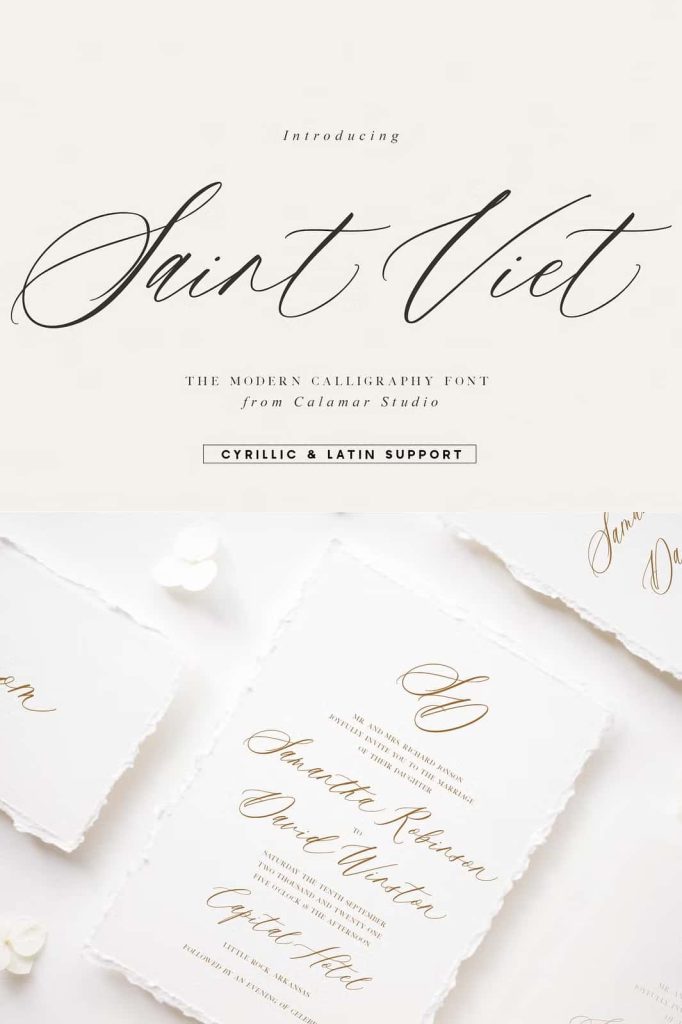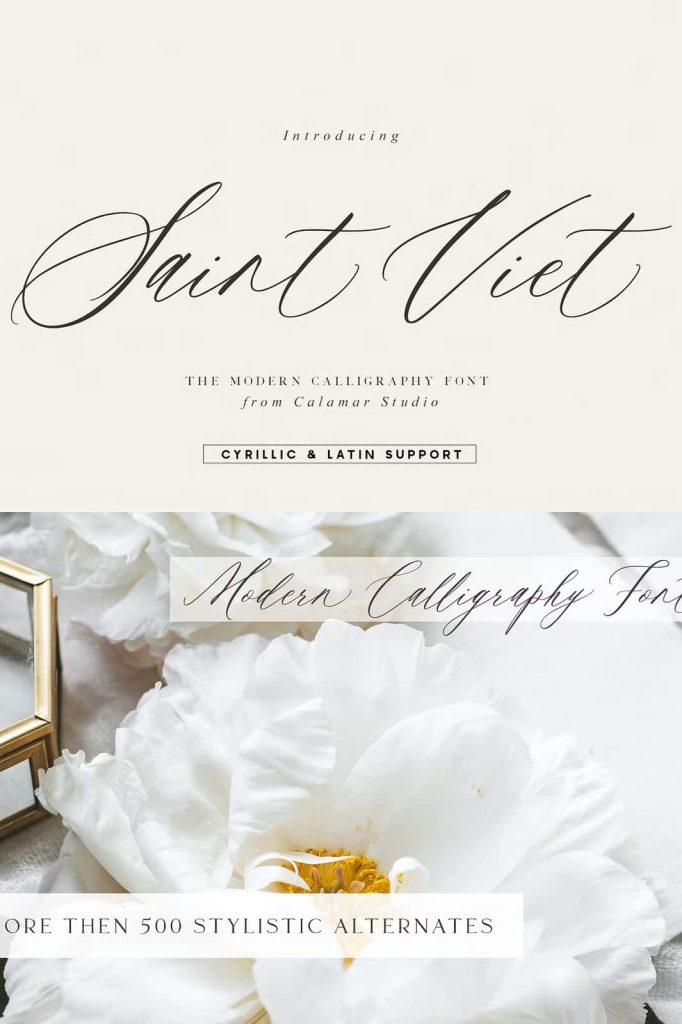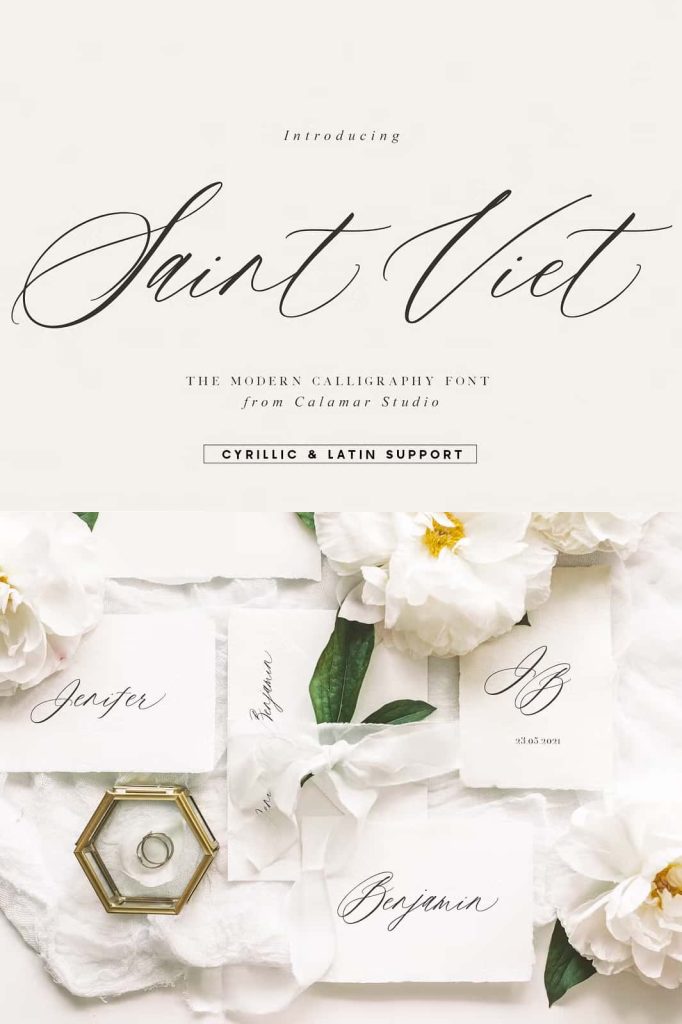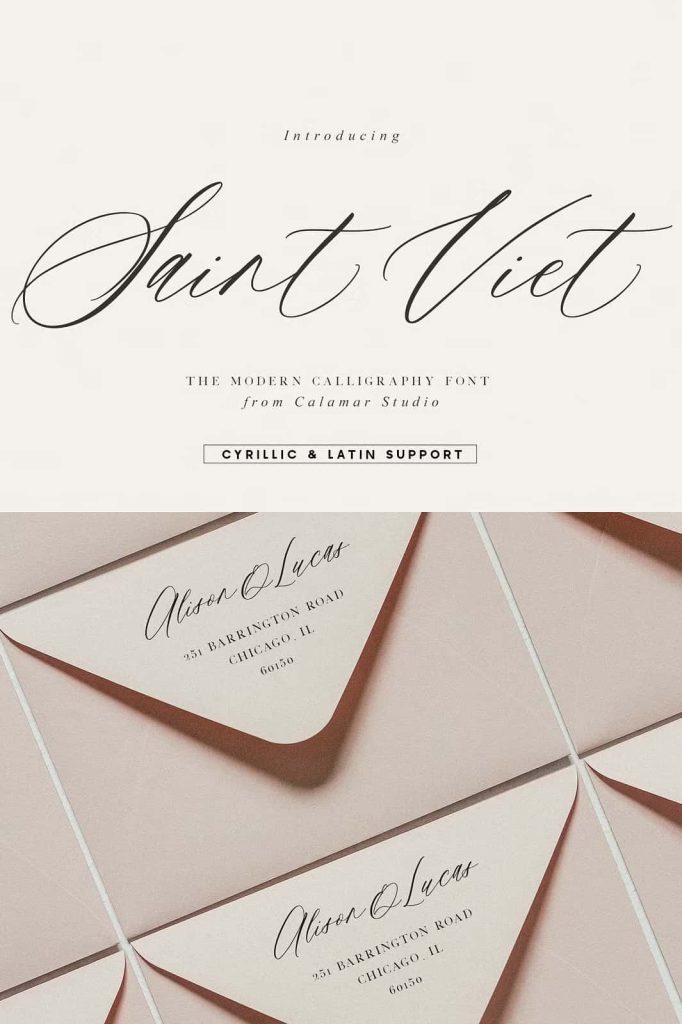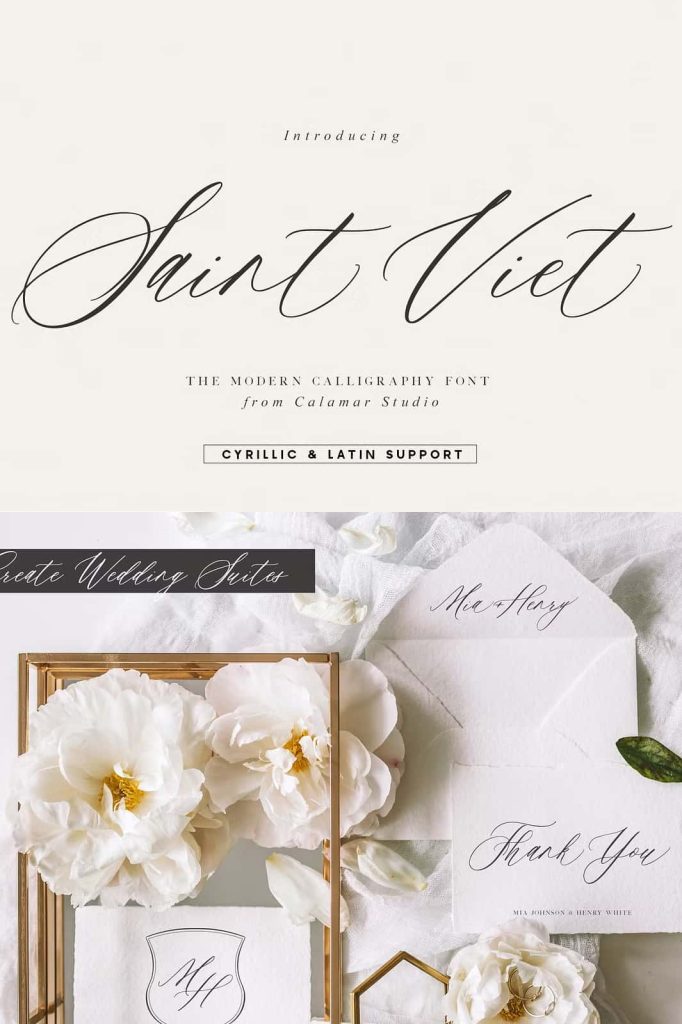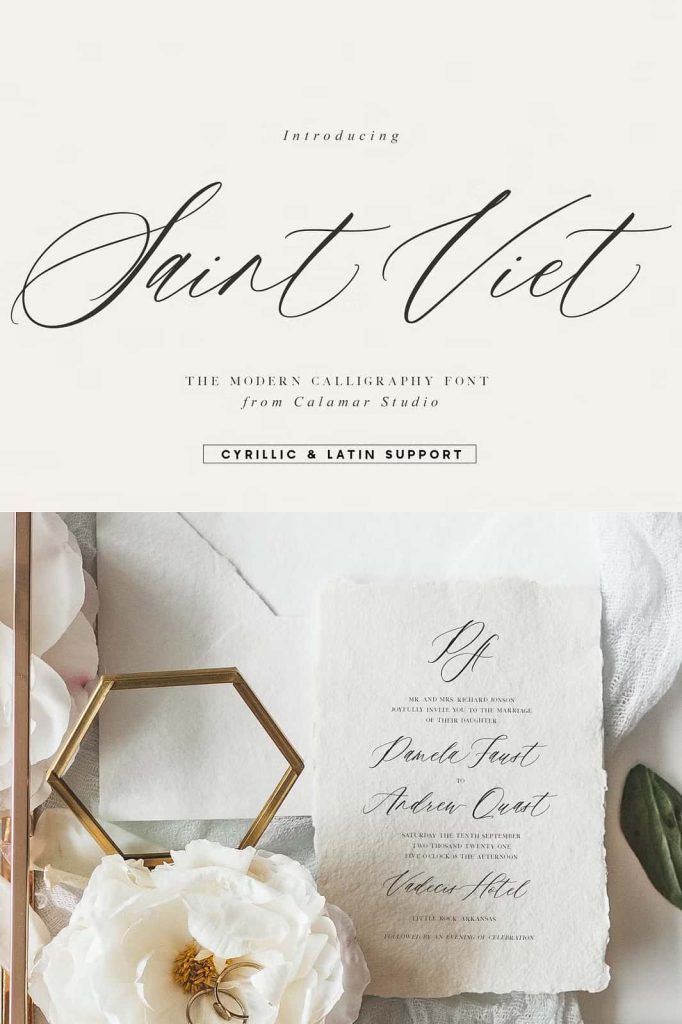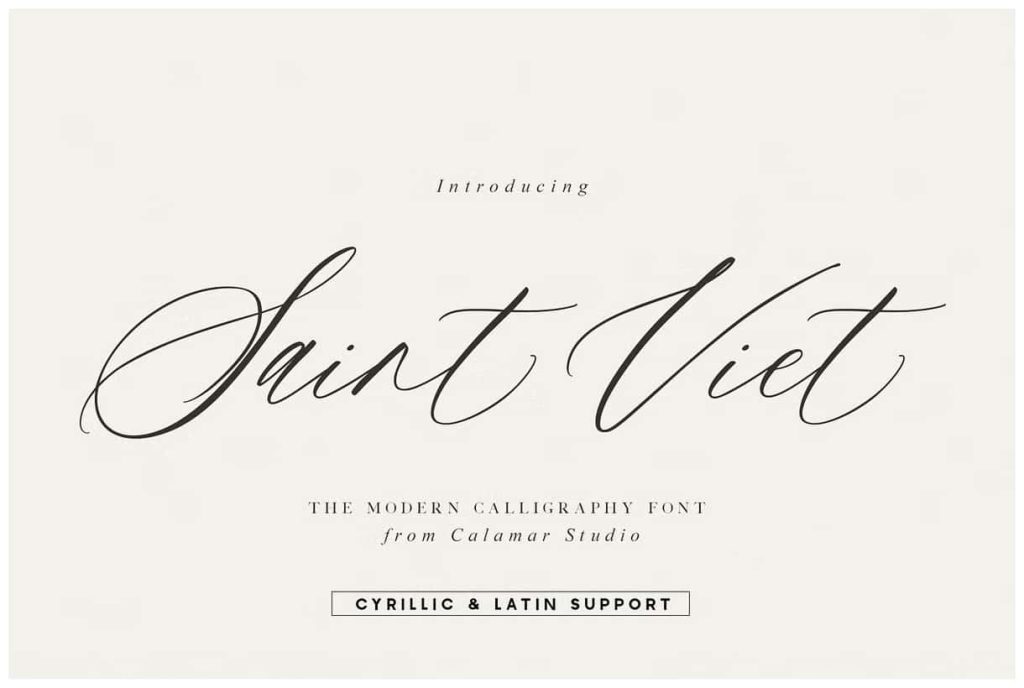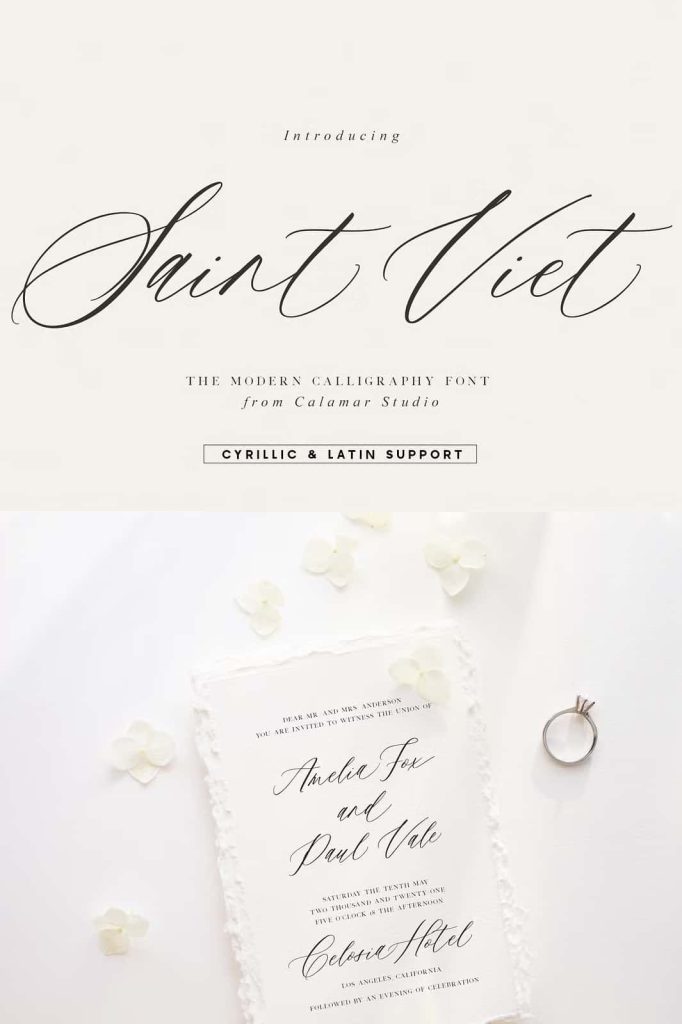
Saint Viet is a light, lovely and modern calligraphy font with sophisticated flows. This beautiful script particularly well suited for wedding invitations, save the date cards and feminine branding.